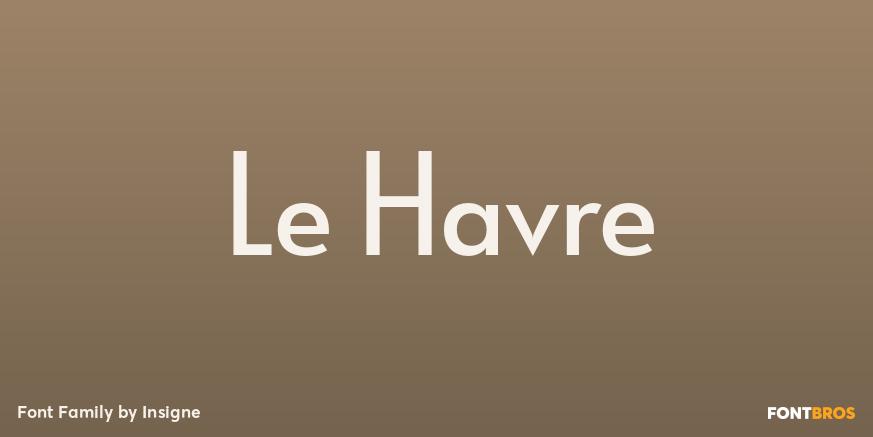
Le Havre
Le Havre is a geometric sans serif inspired by the golden era of the passenger ship, when getting to your destination was a delight in and of itself. Compressed capitals, a low x-height and geometric construction give this art deco inspired sans a unique…